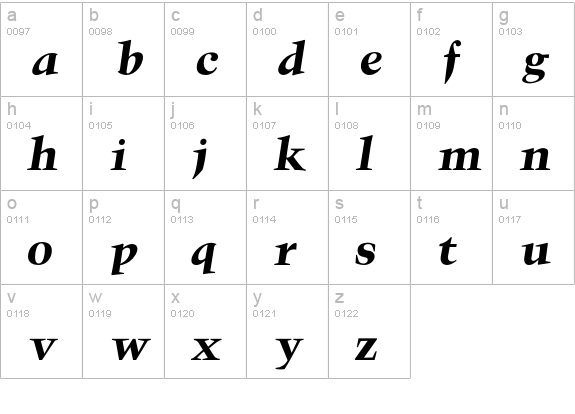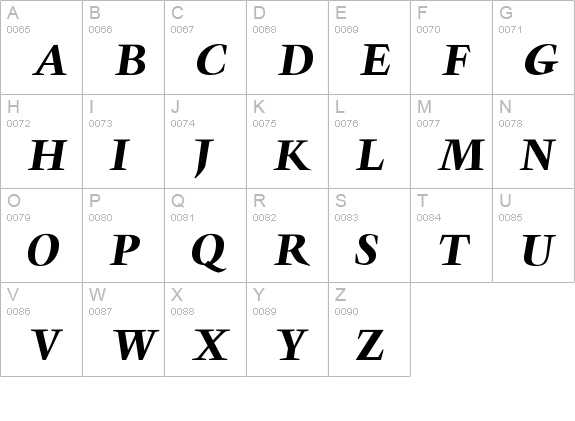
TriumphBoldItalic Font Details
TriumphBoldItalic is a stunning and commanding font that is sure to make a bold statement. With its strong and distinctive letterforms, this font exudes confidence and power. The italicized slant adds a touch of elegance, making it perfect for stylish and sophisticated designs. This font is not only visually striking but also highly versatile. Whether you need it for a logo, a headline, or a poster, TriumphBoldItalic will effortlessly elevate your design and capture the attention of your audience. What sets TriumphBoldItalic apart is not just its impressive aesthetics, but also its accessibility. This font is freely available to download at FontsMarket.com. You can easily obtain this remarkable font without breaking the bank, allowing you to bring your creative visions to life without any limitations. Embrace the opportunity to enhance your designs with TriumphBoldItalic. Its commanding presence and elegant slant will make your projects stand out from the crowd. Download this font today and experience the freedom to create stunning and impactful designs.